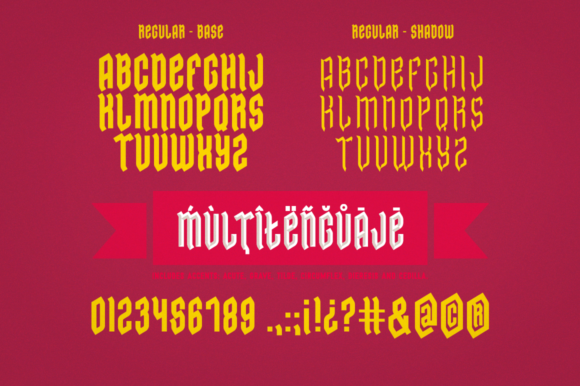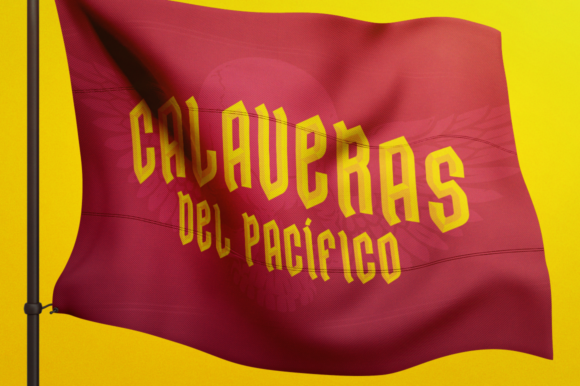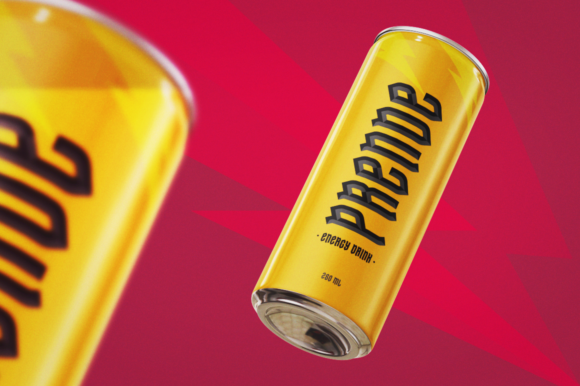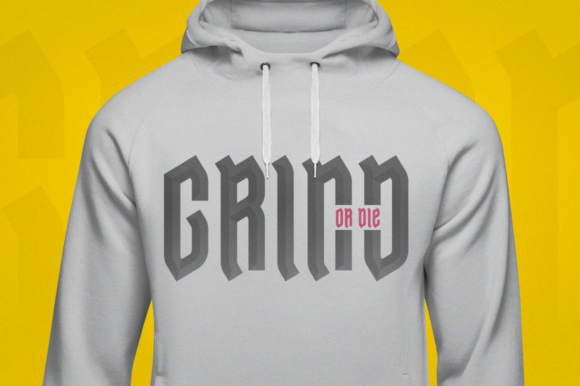
Introducing Edge Font: A Timeless Blackletter Typeface
Are you tired of using the same old fonts in your creative projects? Look no further than Edge Font, a simple yet authentic blackletter font that’s sure to add a touch of vintage charm to your designs. With its historical roots and unique character, Edge Font is the perfect choice for designers and crafters looking to make their work stand out.
The Story Behind Edge Font
Edge Font is a blackletter font, a style of typeface that originated in the Middle Ages. Characterized by its dramatic flourishes and intricate lettering, blackletter fonts were popular in Europe during the 12th to 16th centuries. Over time, the style fell out of favor, but it has experienced a resurgence in popularity in recent years, particularly among designers and crafters looking for a unique and eye-catching font.
The Characteristics of Edge Font
So, what sets Edge Font apart from other blackletter fonts? Here are a few key characteristics that make it special:
- Simple yet authentic: Edge Font is a distilled version of traditional blackletter fonts, with clean lines and simple shapes that evoke a sense of authenticity.
- Vintage and historical touch: Edge Font’s design is rooted in history, with a nod to the classic blackletter fonts of the past.
- Highly legible: Despite its ornate appearance, Edge Font is surprisingly easy to read, making it perfect for use in a variety of applications, from titles and headings to body text.
Using Edge Font in Your Creative Projects
So, how can you use Edge Font to enhance your creative projects? Here are a few ideas to get you started:
- Titles and headings: Use Edge Font to add a touch of drama and elegance to your titles and headings. Its bold, blackletter design is sure to grab attention and draw the eye.
- Invitations and announcements: Edge Font’s vintage charm makes it perfect for use in invitations, announcements, and other formal correspondence.
- Logos and branding: If you’re looking for a unique and memorable font for your logo or brand identity, Edge Font is a great choice.
- Crafting and DIY projects: Edge Font is also a great choice for crafters and DIY enthusiasts looking to add a personal touch to their projects. Use it to create custom signs, labels, and other decorative elements.
Tips for Working with Edge Font
Here are a few tips to keep in mind when working with Edge Font:
- Use it sparingly: Edge Font’s bold design can be overwhelming if overused. Try using it sparingly to add emphasis and create visual interest.
- Experiment with colors: Edge Font looks great in a variety of colors, from classic black and white to bold brights and metallics. Experiment with different colors to find the look that works best for your project.
- Pair it with other fonts: Edge Font can be paired with a variety of other fonts to create a unique and visually appealing design. Try pairing it with a clean sans-serif font for a striking contrast.